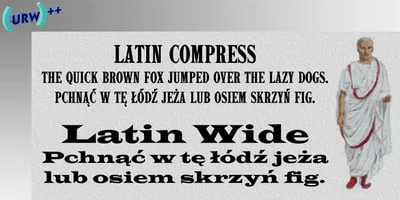
Latin Wide Font
The Latin Wide Font is ideal for impactful design projects including architectural signage, monument inscriptions, classical institution branding, museum displays, government building signage, historical commemorative materials, academic publications, and formal ceremonial documents. This commanding typeface brings timeless authority and monumental presence to any design project requiring dignified, institutional typography.
What makes Latin Wide Font so exciting is its powerful combination of classical Roman letterforms with extended proportions that create an immediate sense of permanence and institutional gravitas. The letters feature strong, wide characters with authoritative presence that commands attention while maintaining exceptional legibility at large sizes. This distinctive monumentality makes it perfect for projects that want to communicate tradition, stability, and enduring institutional values.
The Latin Wide Font family typically includes regular and bold weights, often with condensed variations and comprehensive character sets. Many versions feature classical numerals, institutional symbols, and formal punctuation marks that enhance its authenticity for governmental, academic, and ceremonial applications.
Whether you're designing for educational institutions, government agencies, or historical projects, Latin Wide Font provides the perfect solution for designs that need to convey authority, tradition, and institutional dignity. This font transforms standard text into monumental designs that immediately communicate permanence, respect, and classical institutional excellence to formal audiences seeking trustworthy, established presence.